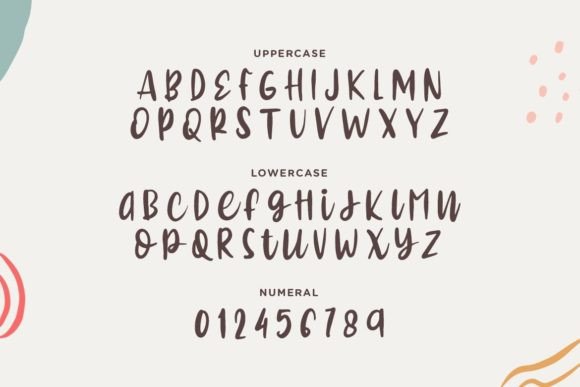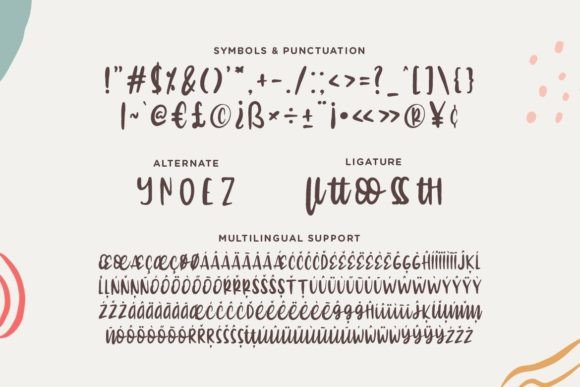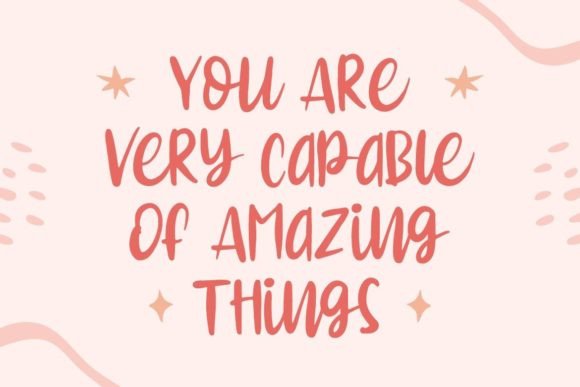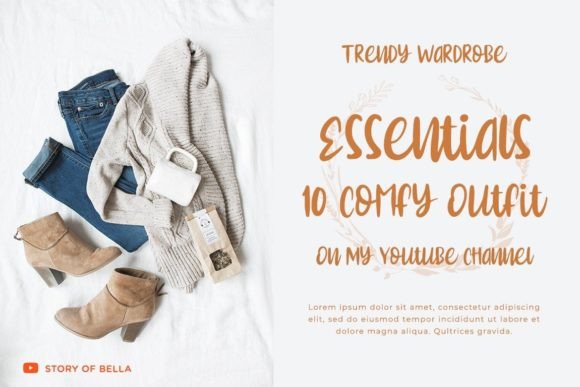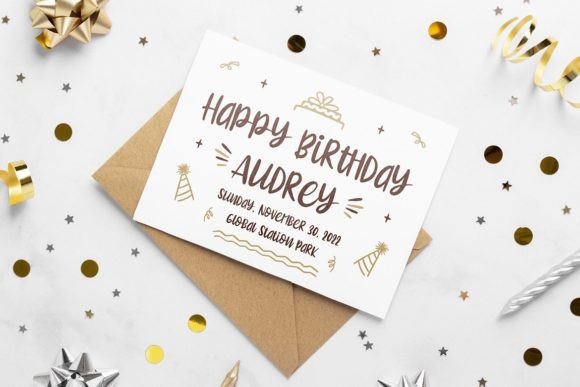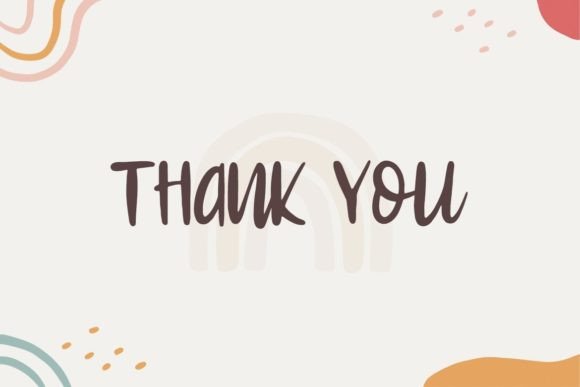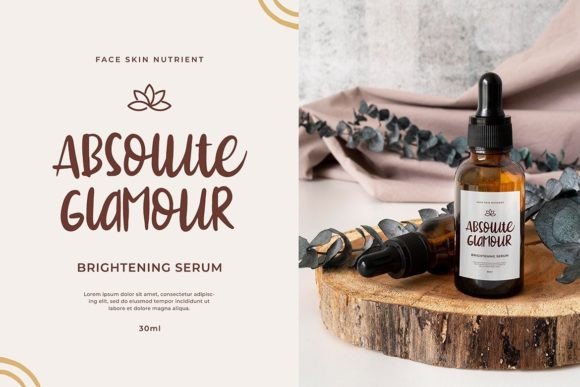
The Notling Font
About The Notling Font
The Notling is a beautiful handwritten typeface that boasts a natural writing style coupled with great readability. This font is ideal for adding a touch of authenticity to your beautiful and luxurious designs. Whether you’re working on branding, invitations, or any project that requires an elegant and personalized feel, The Notling contributes to a natural and sophisticated aesthetic.
The font’s natural writing style gives it a genuine and approachable quality, making it suitable for a range of design applications. Its readability ensures that your messages are conveyed with clarity, while the overall look adds a touch of luxury to your creative projects.
In summary, The Notling is more than just a font; it’s a design element that brings a natural touch to your work, enhancing the overall beauty and sophistication of your designs. Whether used for print or digital media, this handwritten typeface is crafted to add a genuine and luxurious feel to a variety of creative endeavors.